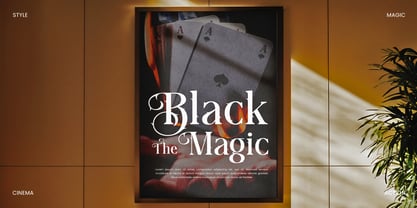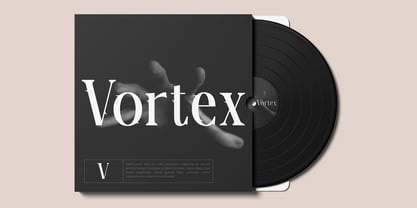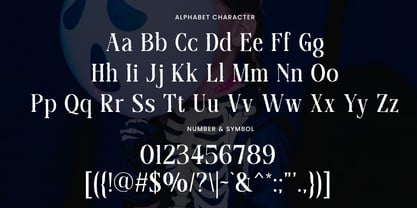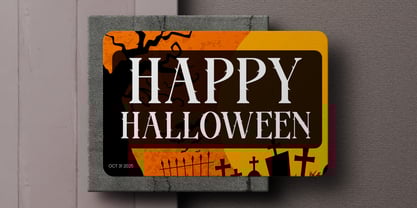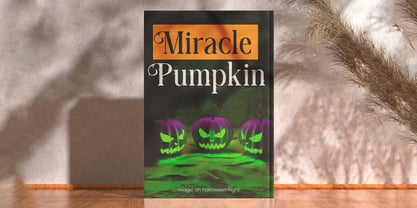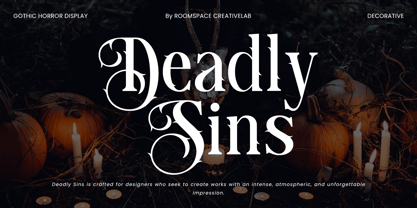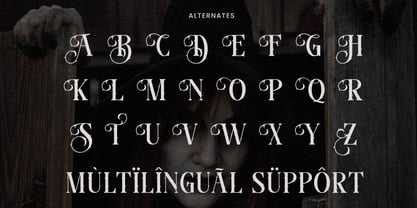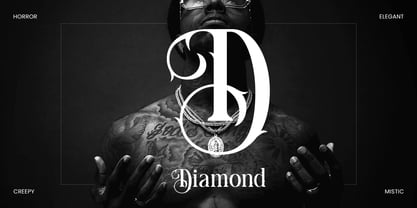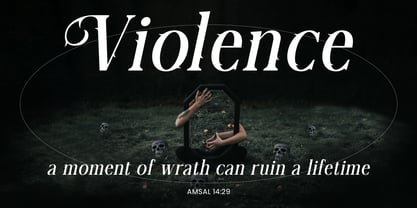
Deadly Sins
by Jafar07
The Deadly Sins Font Family was designed by Bakhrudin Ja'far and published by Jafar07. Deadly Sins contains 2 styles and family package options. More about this family
Deadly Sins is a gothic horror display font designed to bring a dark, mysterious, and unforgettable vibe to your projects. With bold letterforms, dramatic curves, and atmospheric details, this font captures the perfect balance between vintage gothic elegance and modern horror aesthetics. Its sharp edges and haunting style make it versatile for posters, Halloween invitations, book covers, branding, or social media graphics that demand intensity and impact. If you’re looking to add a spooky, cinematic, and powerful touch to your design, Deadly Sins is the font you need.
A little from my personal design & background: My name is Bakhrudin Ja'far, I live in Malang, Indonesia. I am currently completing my degree in visual communication design and I have worked as a lettering artist and logo designer for many years. I finally started my studio called roocspace creative lab (jafar07) Studio a few months ago and with my team made my letters into typography.